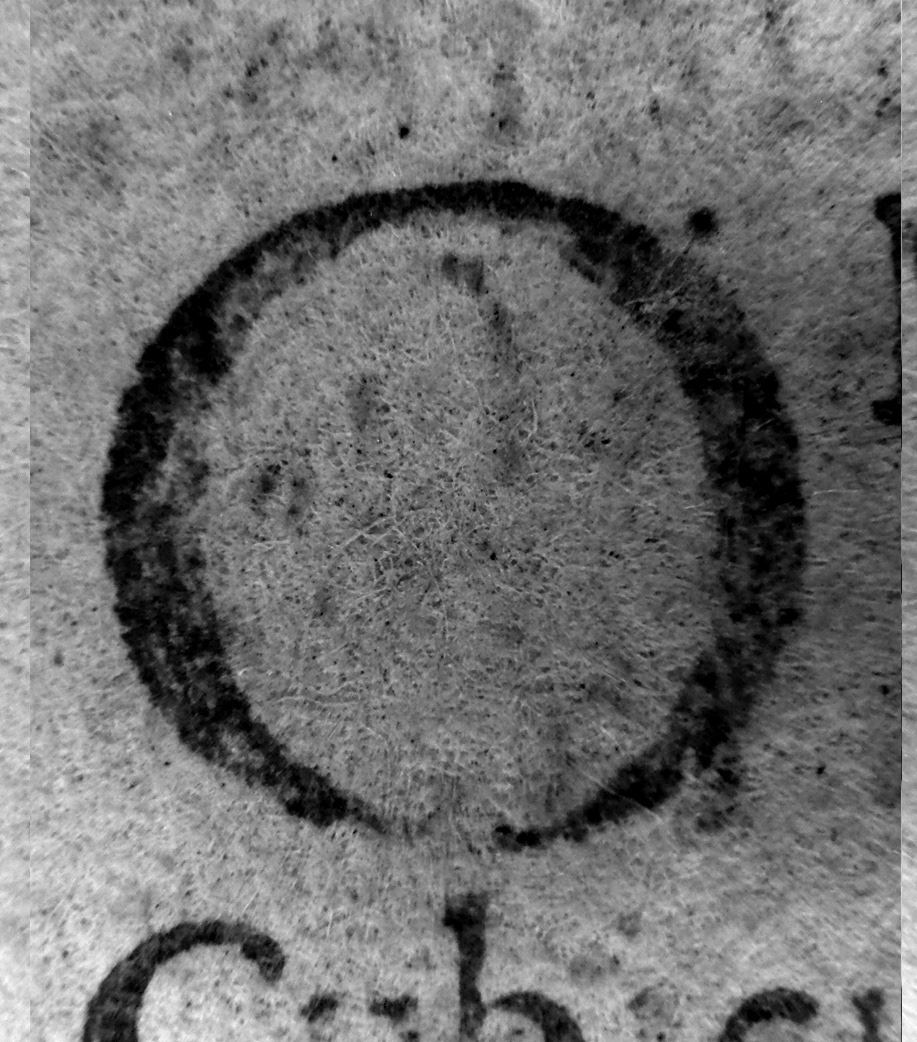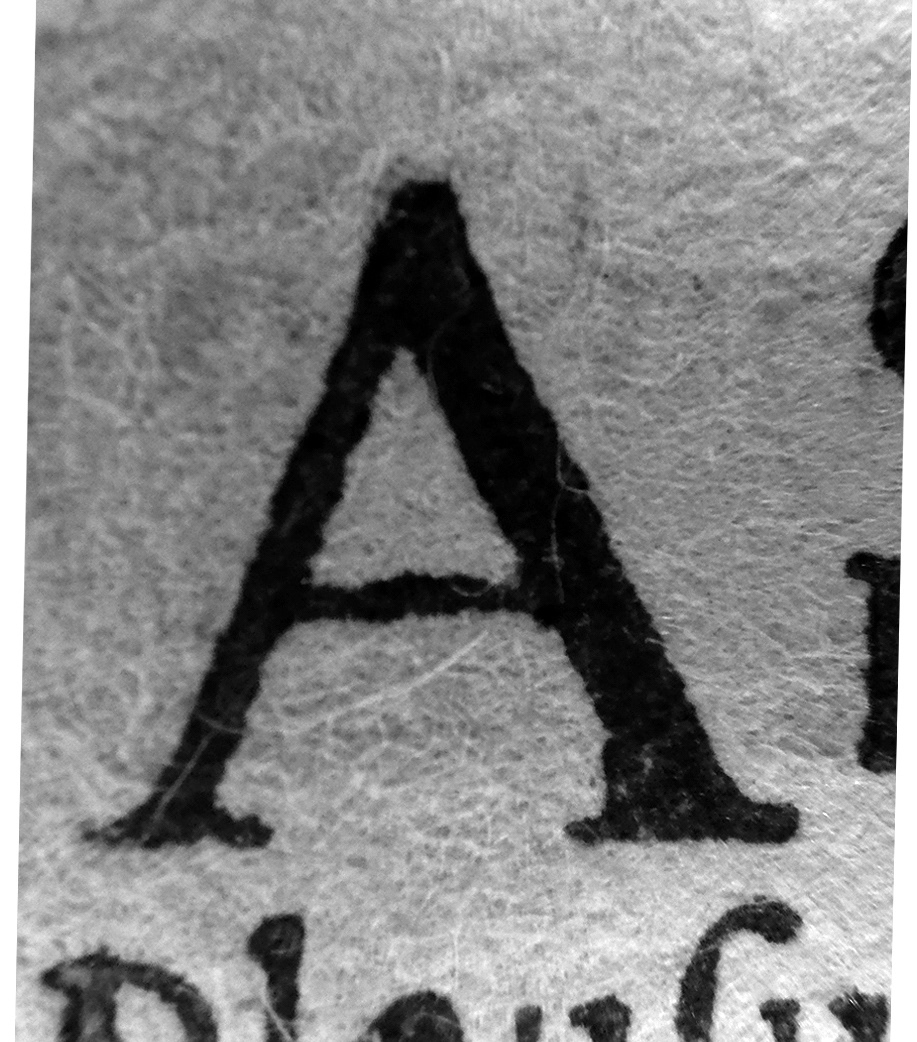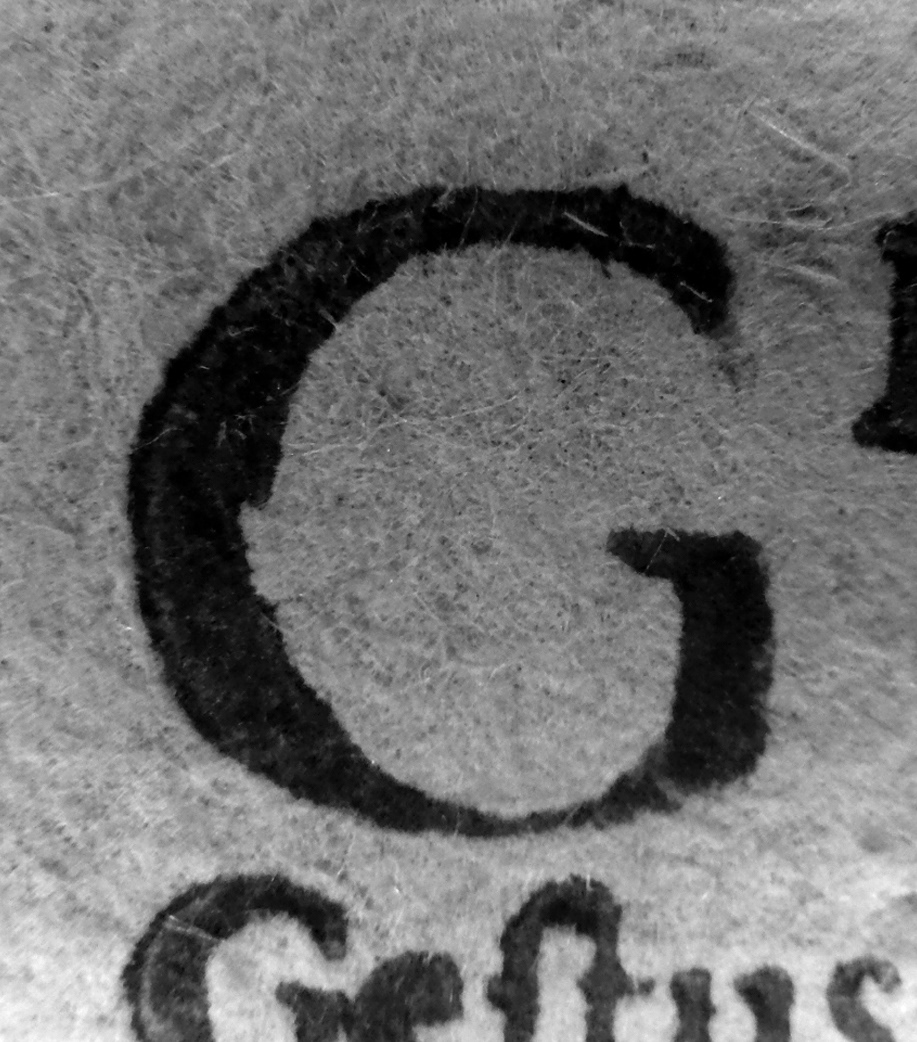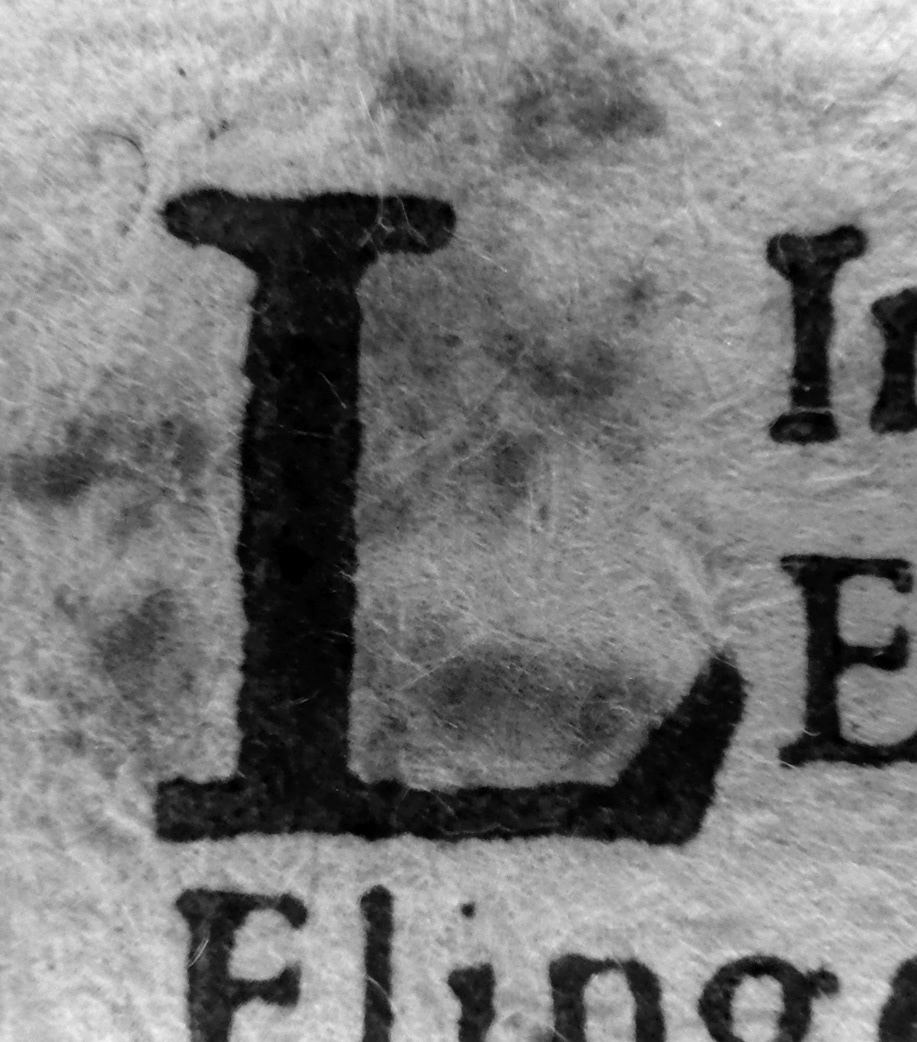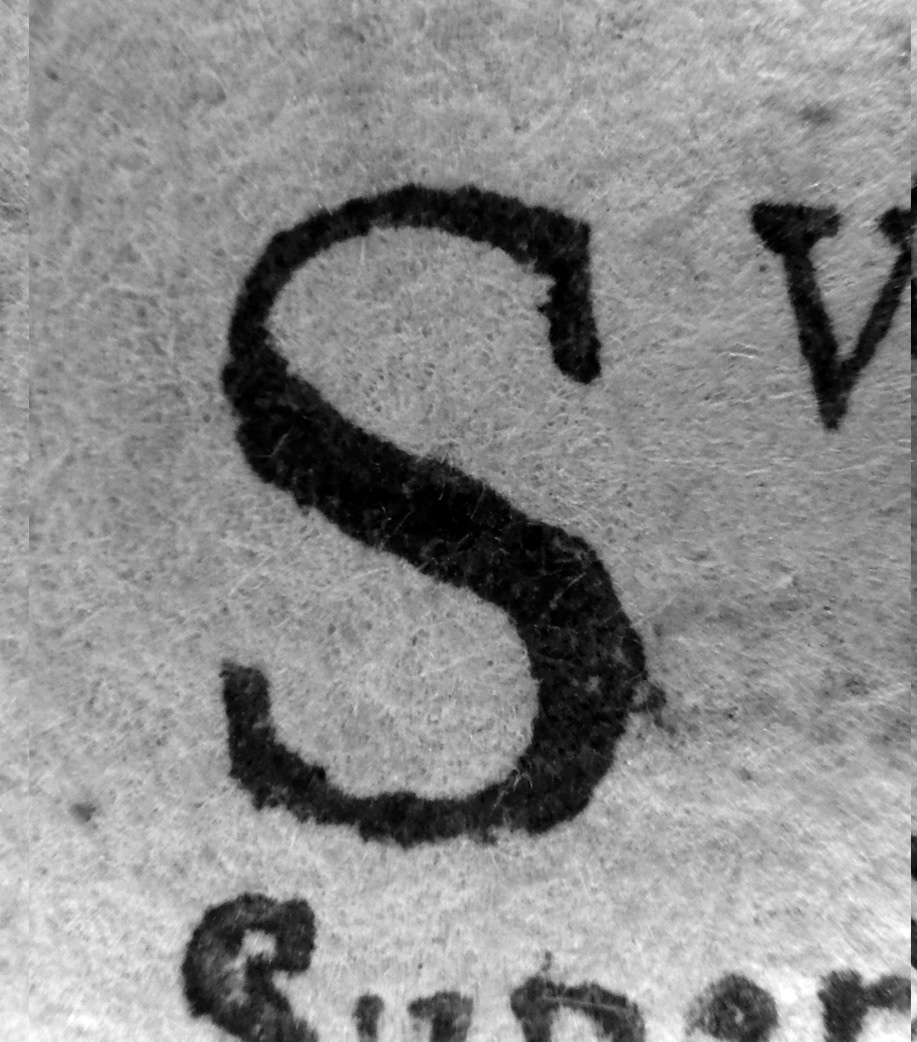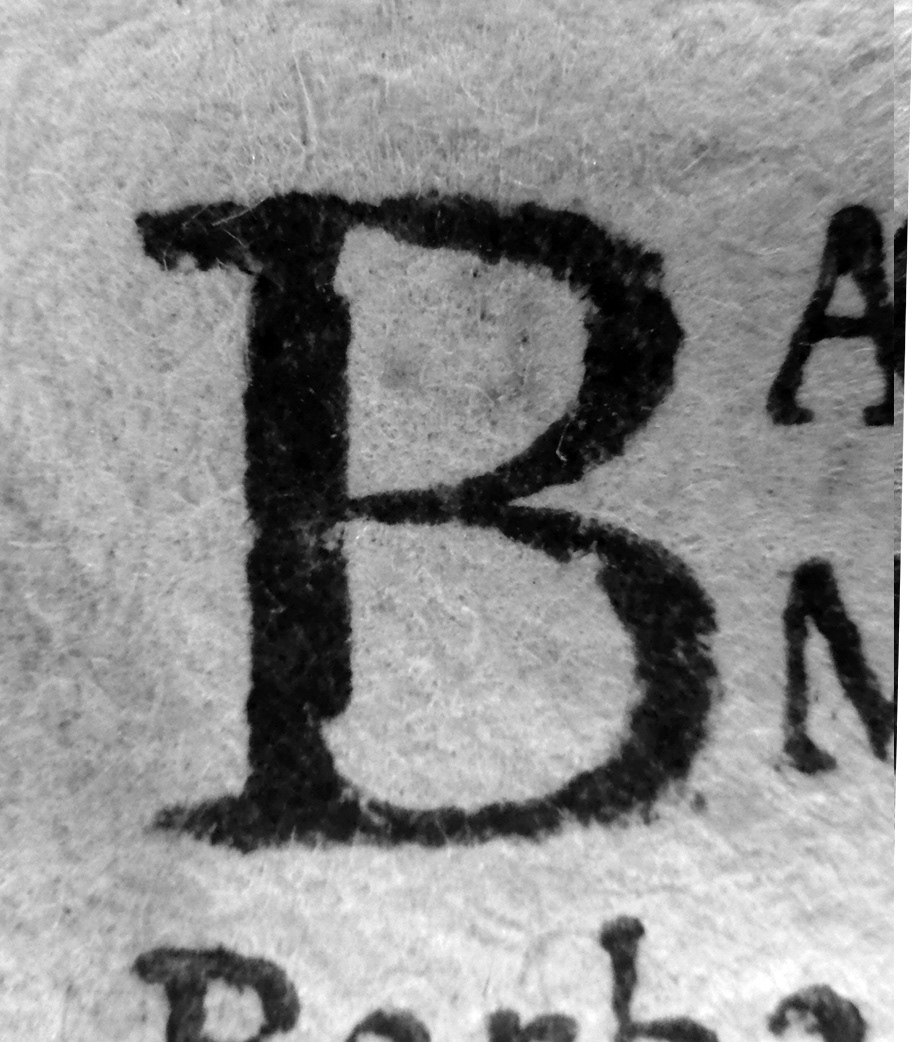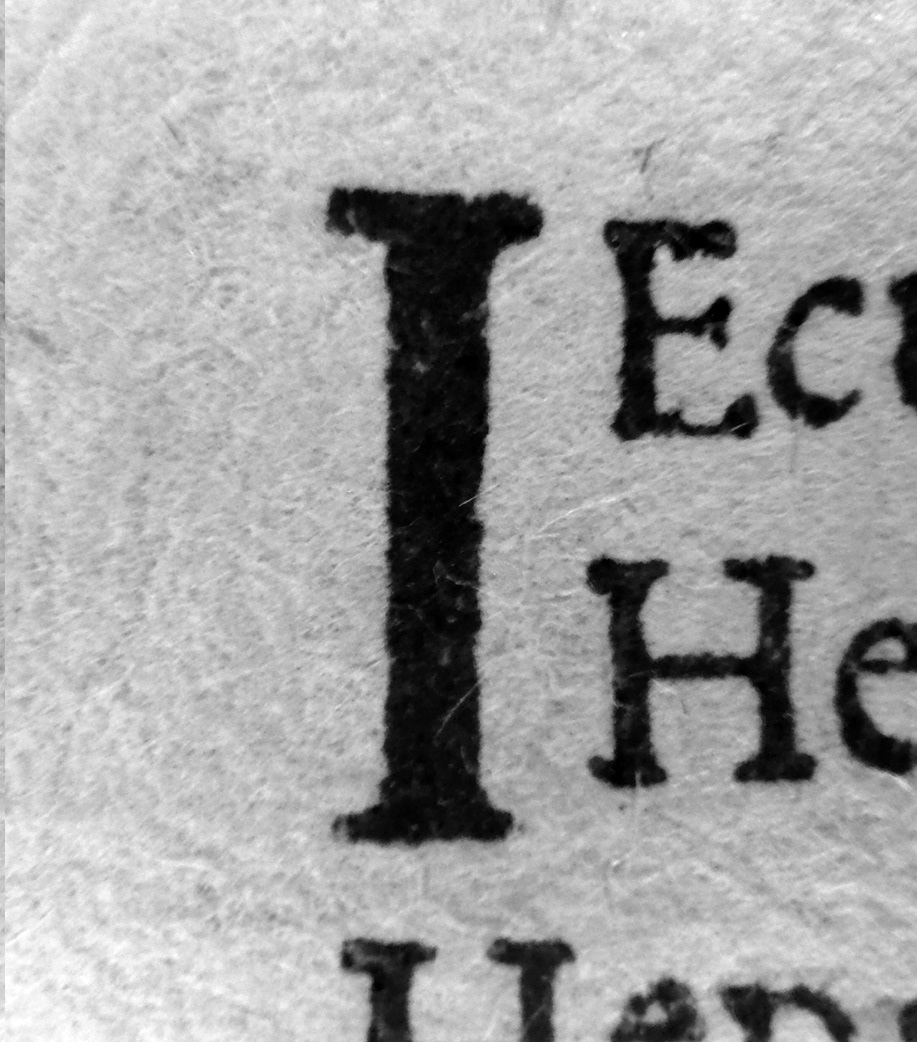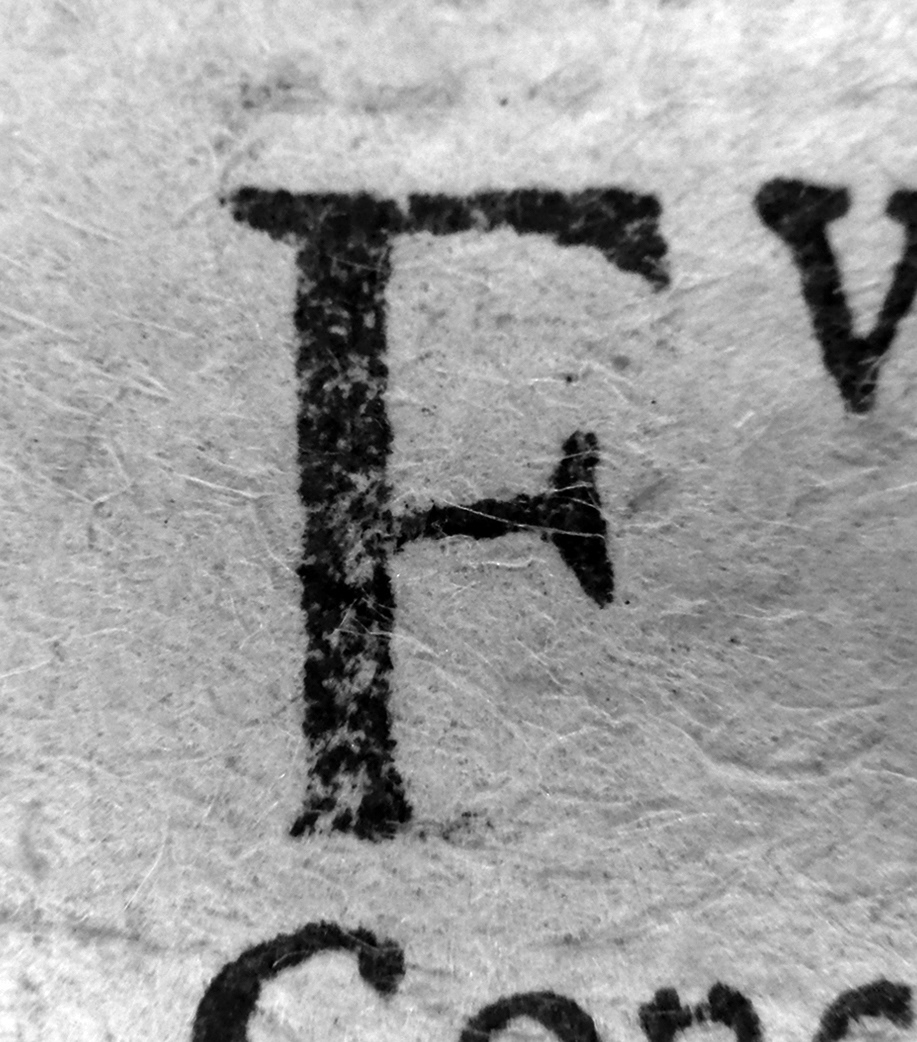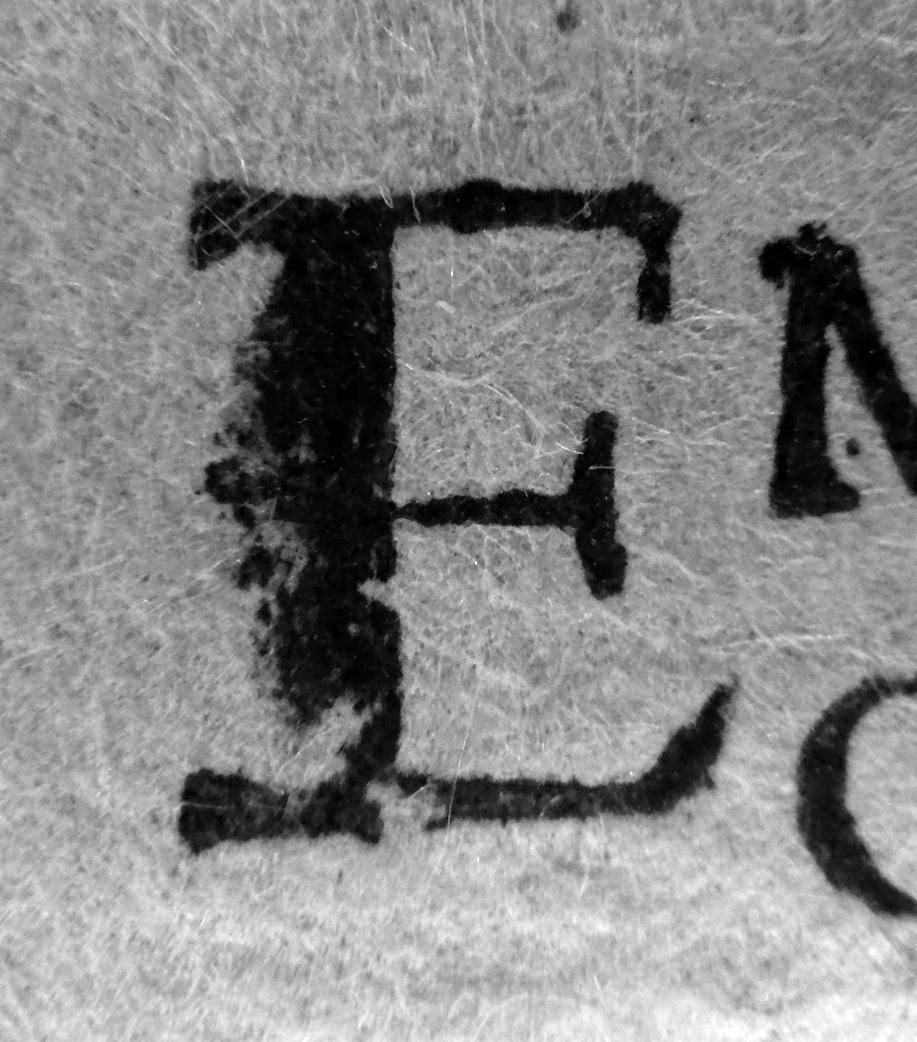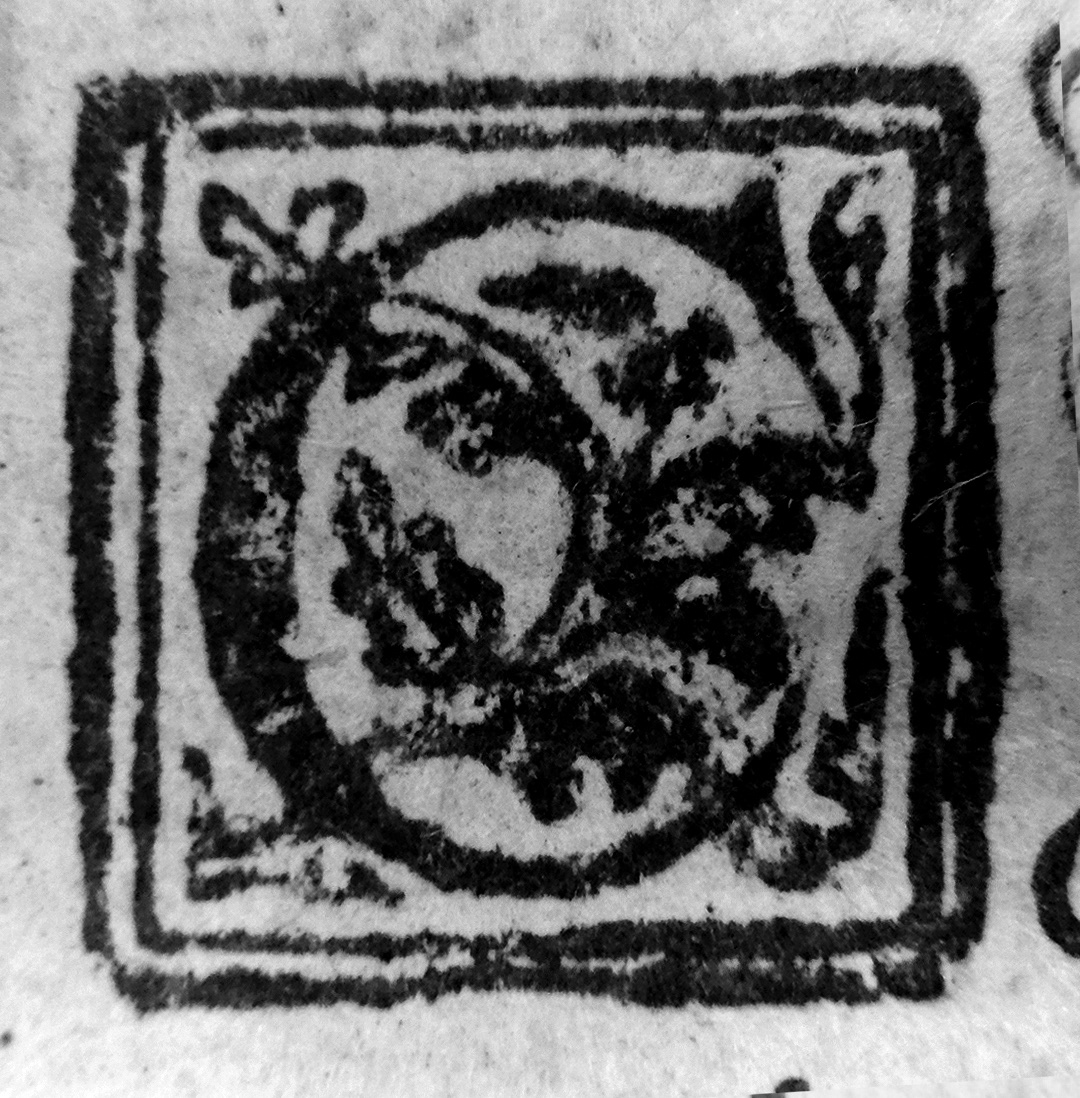
Bibliographical description:
Author: Jerónimo Cardoso
Editor: not identified
Translator: non applicable
Corrector: not identified
Short Title: Dictionarium Iuventuti Studiose
Place of Print: [Coimbra]
Printer/s: [João de Barreira & João Álvares]
Publisher: not identified
Date of Print: [1551]
Ownership Marks: Leite de Vasconcelos (written on the board/pastedown)
List of Contents: Index (starts with officia at signature Aiii) + Dictionarium
Colophon: not identified
Paper: very thin
Page Size: 12º cut to 120x60 mm
Column Area: 105x48mm
Printing Area: 33 lines of text
Quires: 6 (2 folios missing in the beginning; last quire incomplete)
Signatures: Aiii - F numbered on rectos
Guide Letters: non existent
Woodcuts: Yes / monkey sitting on pot on folio 3r, barred f lower motif on 65r + illustrated capitular C
Copperplates: non existant
Illustrations: non existant
Printing Color: Black
Catchwords: Yes
Marginalia: non existant
Interlinear Glosses: non existant
Language/s: Latin
Type/s: Roman + Inclined capitulars
Editions: 1551 / 1562 / 1587
Location of Copies: 1551 Biblioteca da Faculdade de Letras da Universidade de Lisboa - RES-93 / 1562 - Biblioteca de Évora - RES 8-A + 259-C / 1587 Biblioteca Pública Municipal do Porto - X1-3-44
Assorted signs
Italic Majuscules 8pt
Numerals 8pt
Roman Alphabet 8pt
Roman Alphabet 14pt
Roman Capitals 20pt
Roman Majuscules 10pt